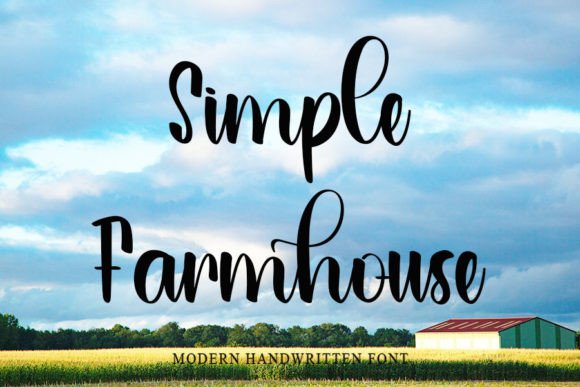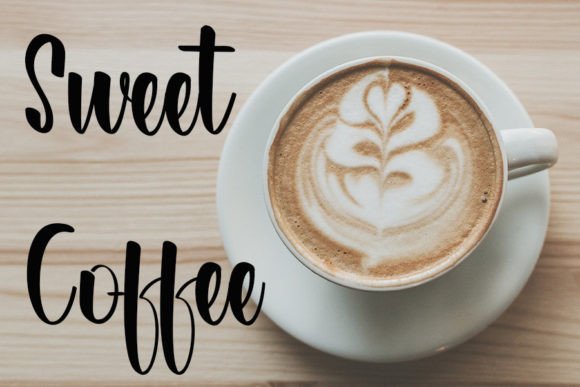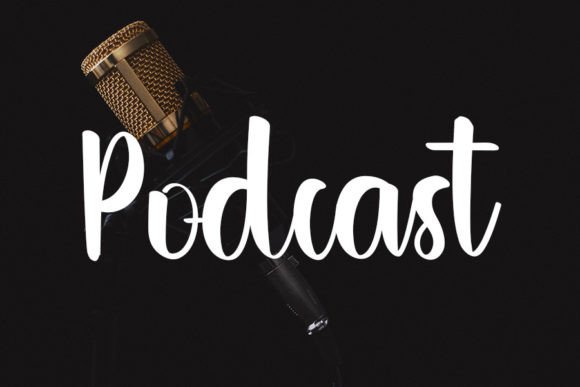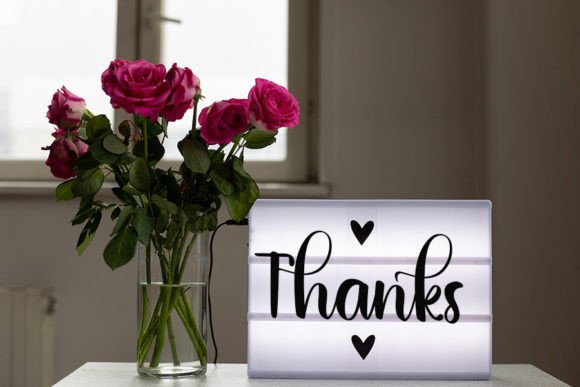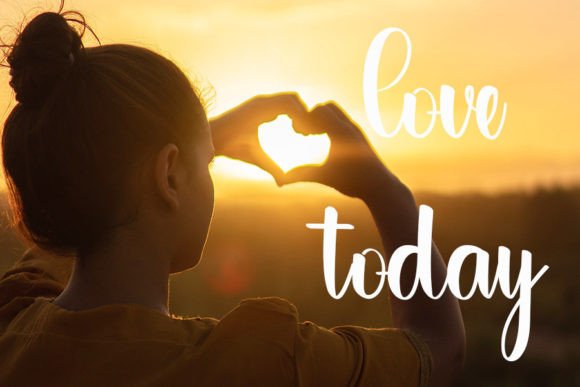
Simple Farmhouse Font
About Simple Farmhouse Font
Simple Farmhouse, with its neat and beautiful handwritten style, is characterized by an elegant touch that makes it perfect for a variety of creative projects. Its simplicity and elegance make it a versatile font that adds a touch of charm to your favorite endeavors.
The distinct and timeless style of Simple Farmhouse sets it apart, giving your designs an enduring quality. It brings a sense of sophistication to your projects, making it a great choice for those who appreciate a classic aesthetic.
Imagine Simple Farmhouse gracing wedding invitations, where its neat and elegant script adds a touch of refinement to the celebration. Envision it on greeting cards, giving your heartfelt messages a timeless and distinct look. Whether used in digital or print media, Simple Farmhouse adds a touch of class to your designs.
In branding and marketing, Simple Farmhouse becomes a reliable choice for creating a memorable and elegant brand identity. Its handwritten charm adds a personal touch, creating a connection with your audience. The simplicity of the font also ensures readability, making it suitable for various applications.
As you fall in love with the incredibly distinct style of Simple Farmhouse, you’ll find that it becomes a versatile tool for expressing your creativity. Let it be the foundation for creating spectacular designs that stand the test of time.
Whether you’re a graphic designer seeking a font that combines simplicity with elegance or an individual working on a special project, Simple Farmhouse invites you to infuse your designs with its timeless charm. Let it be the key element that transforms your favorite projects into visually spectacular works of art.